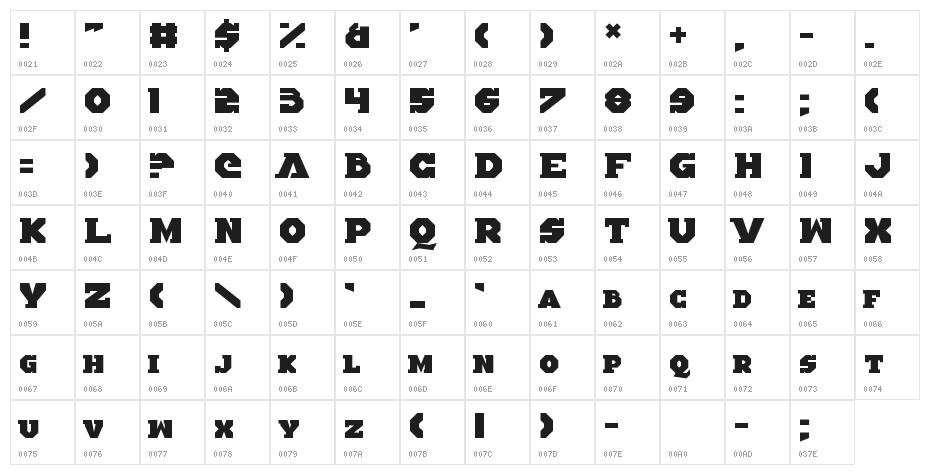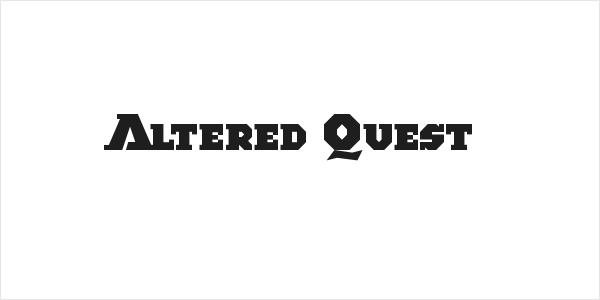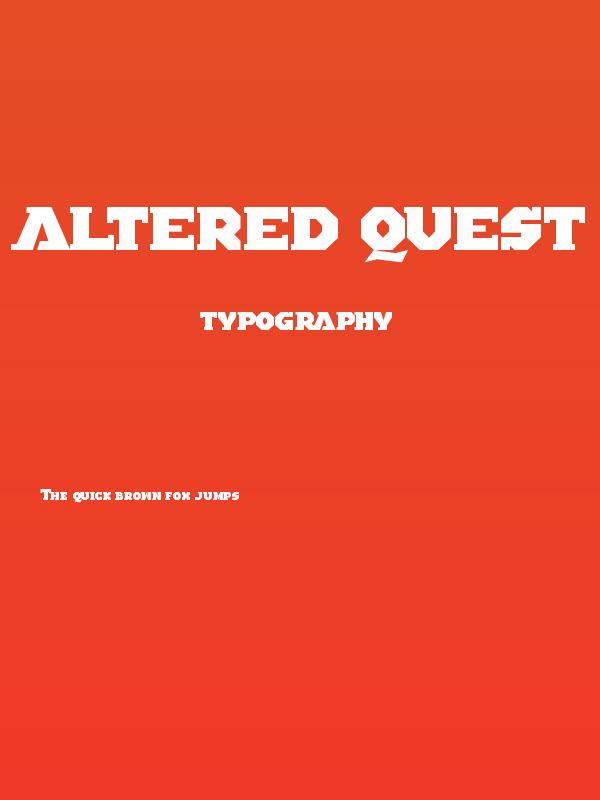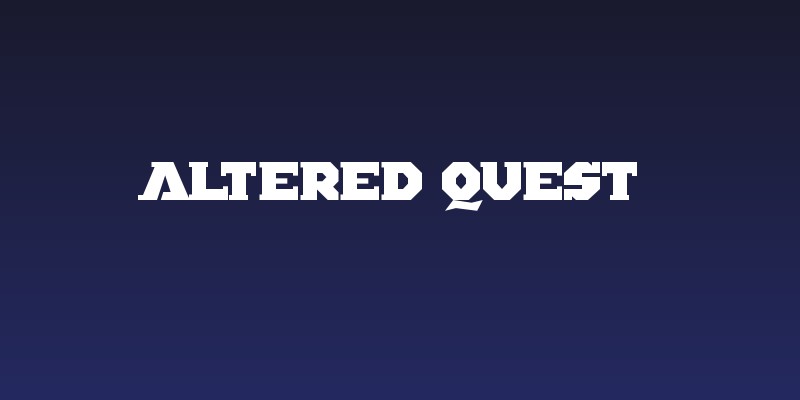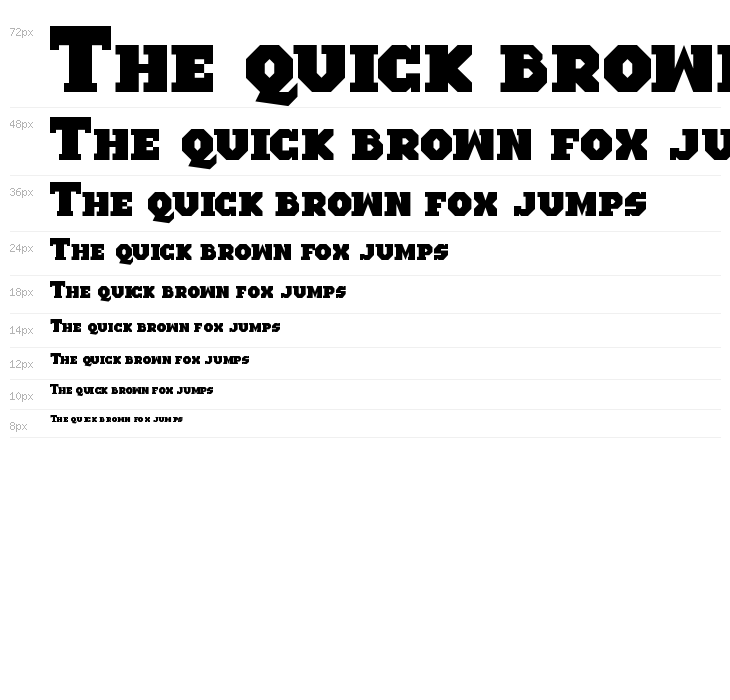
Altered Quest Font
Altered Quest Description
This font features a bold and geometric design, characterized by sharp angles and a strong presence. The uppercase letters are particularly striking, with a blocky appearance that conveys strength and stability. The lowercase letters maintain this robust style, ensuring consistency throughout the typeface. Numbers and special characters are equally bold, making them stand out in any design. The font's unique style is ideal for projects that require a modern and assertive look, such as branding, posters, or headlines. Its distinct appearance ensures that it captures attention while maintaining readability.
Proposed ProjectsIdeal for branding, posters, headlines, and any project needing a modern, assertive look.